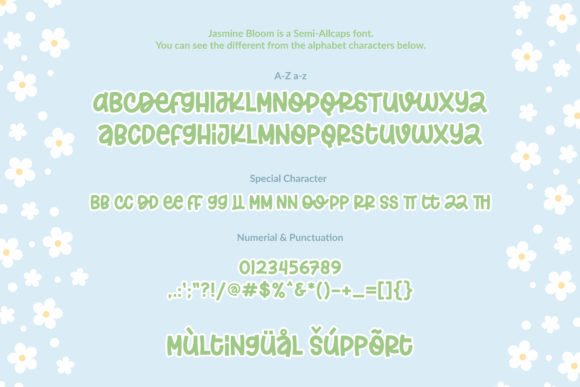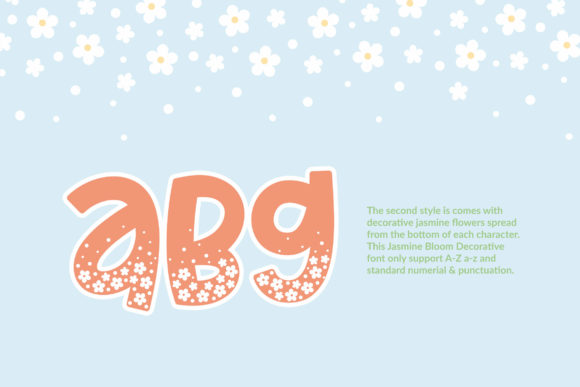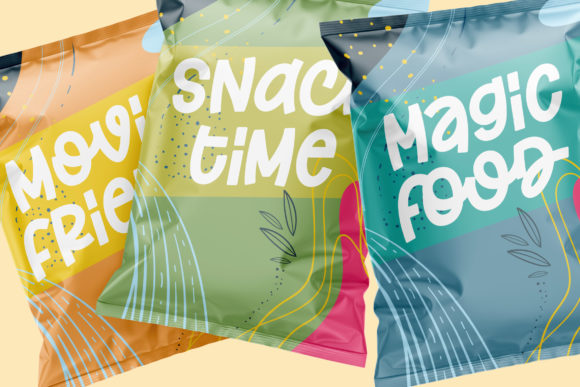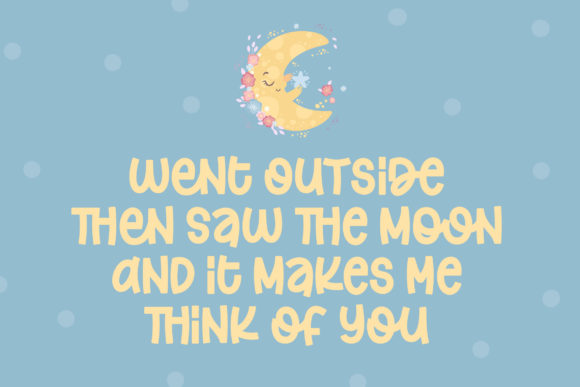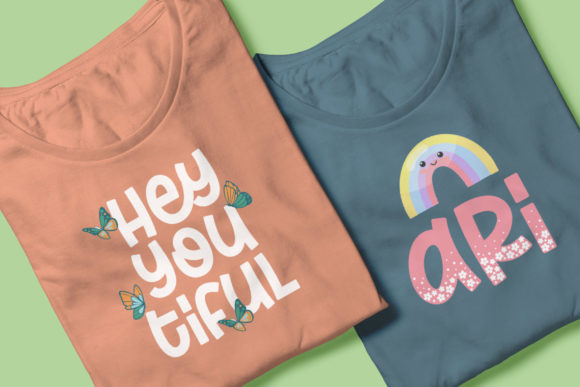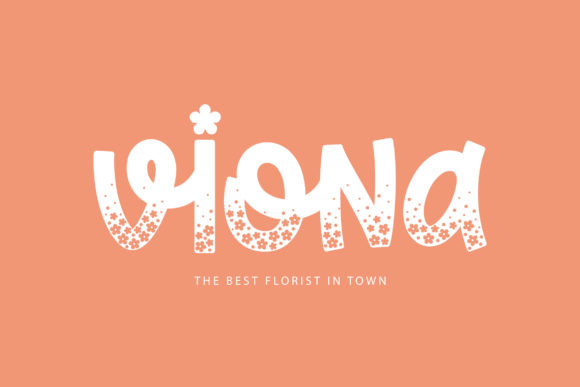
Introduction to Jasmine Bloom Font
Jasmine Bloom is a cute and bold display font, carefully handcrafted to become a true favorite.
This font will look outstanding in any context, whether itโs being used on busy backgrounds or as a standalone headline .